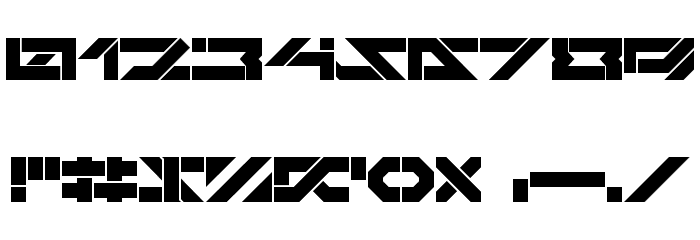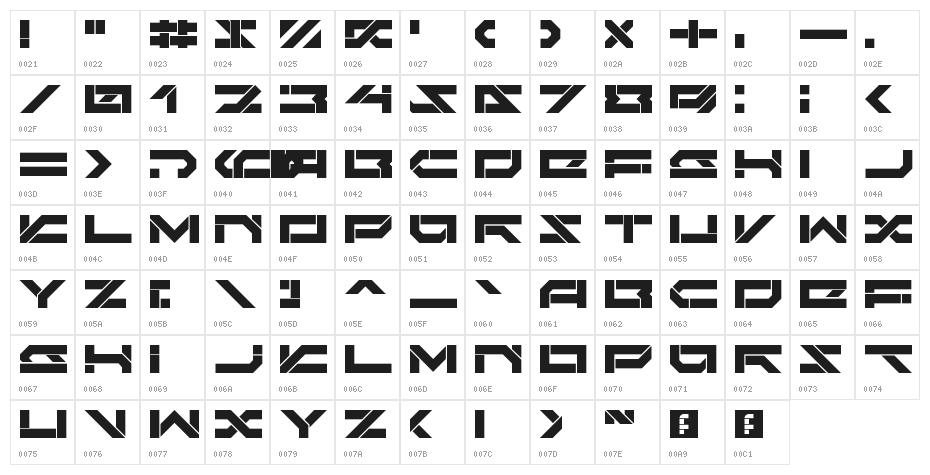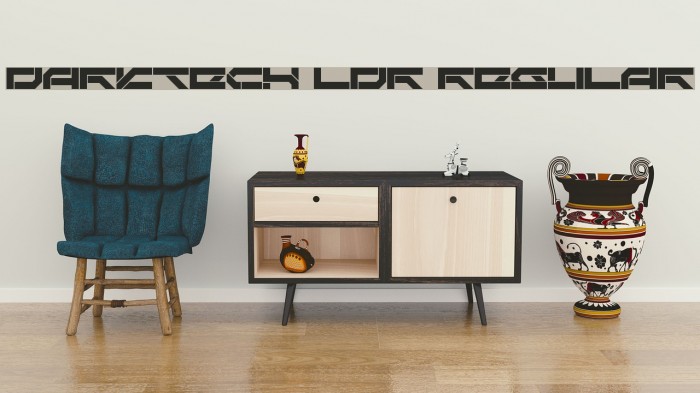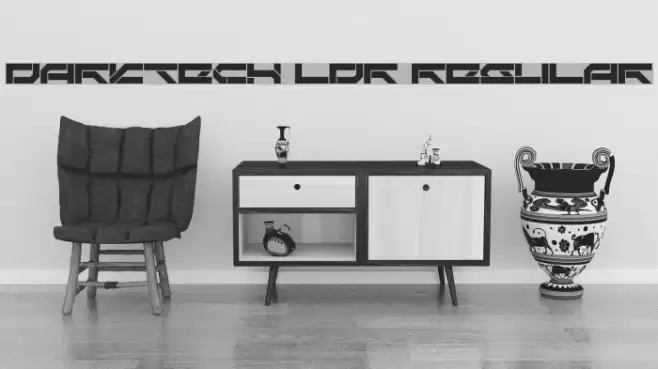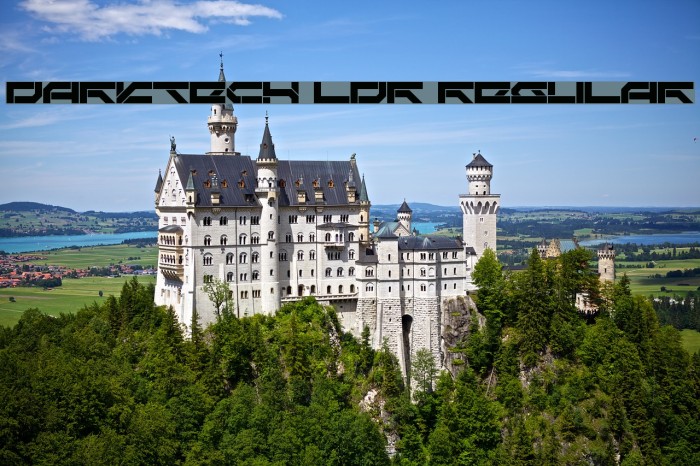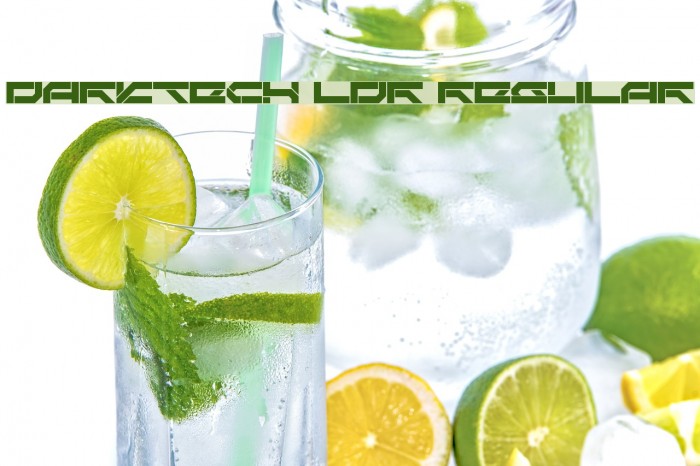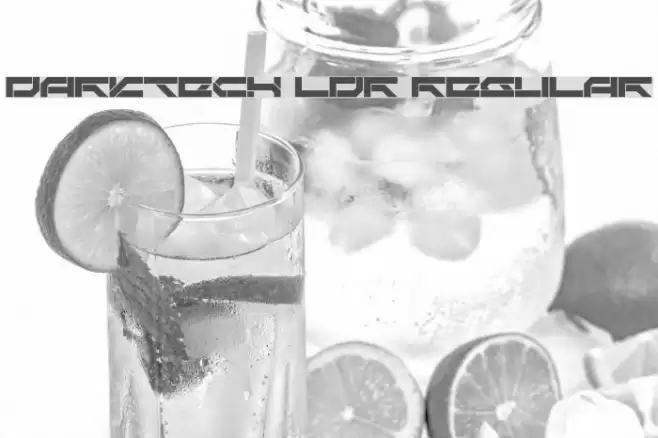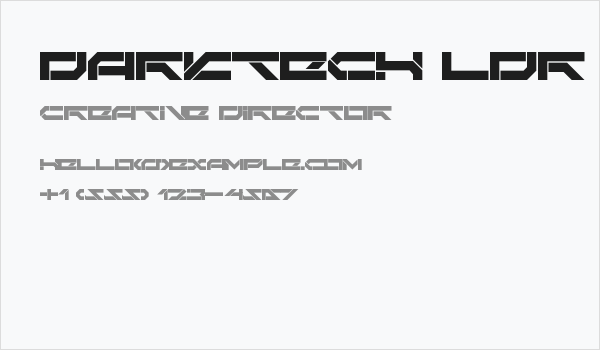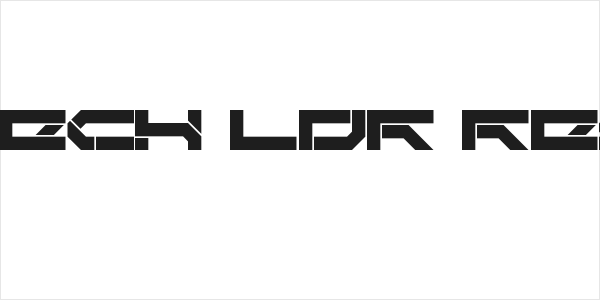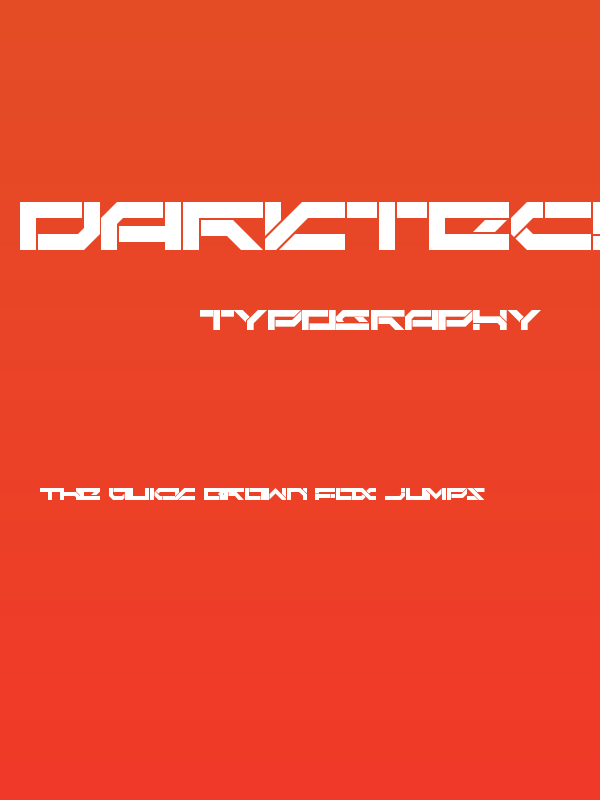
Darktech LDR Regular Font
Darktech LDR Regular Description
This font features a futuristic and geometric design, characterized by its sharp angles and bold lines. The letters are constructed with a series of straight edges and diagonal cuts, creating a highly stylized and modern appearance. The uppercase and lowercase letters maintain a consistent design theme, with a uniform height and width that emphasizes the font's structured nature. Numbers and special characters follow the same design principles, ensuring a cohesive look across all elements. This font's distinct style makes it ideal for projects that require a tech-inspired or avant-garde aesthetic.
| Proposed Projects | Ideal for tech branding, sci-fi themed designs, video game interfaces, and modern digital art. |